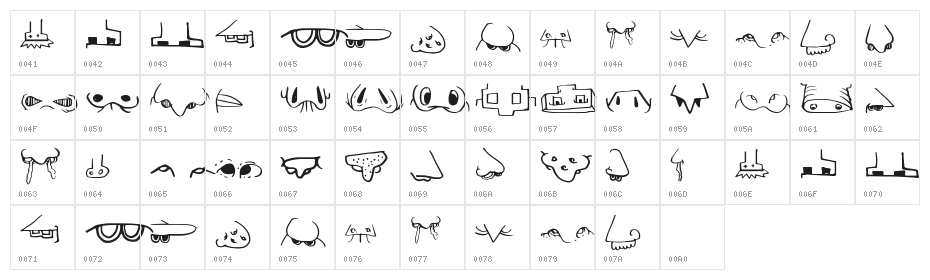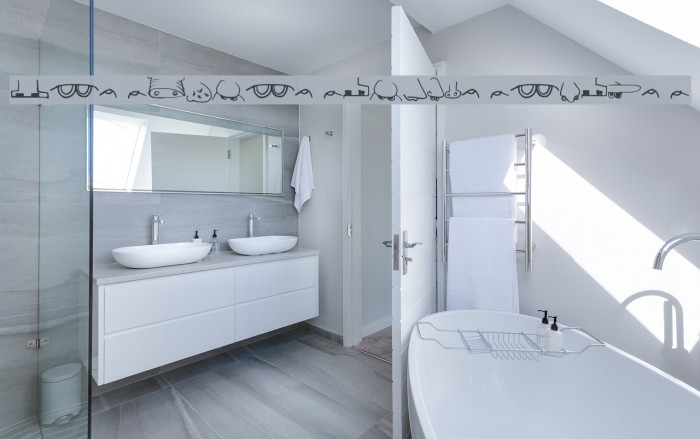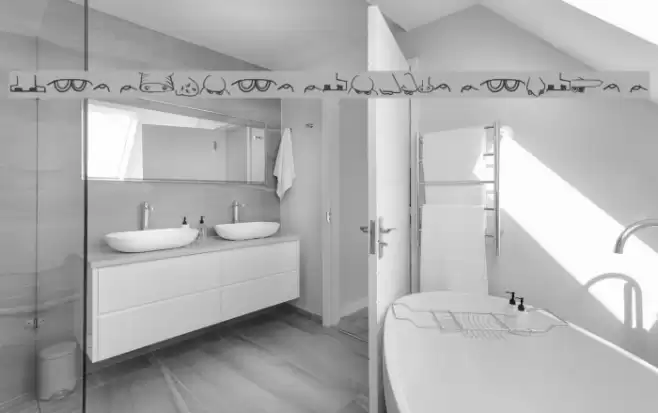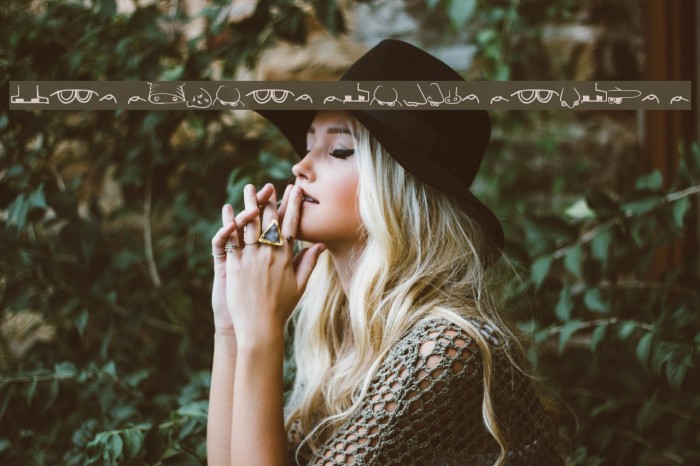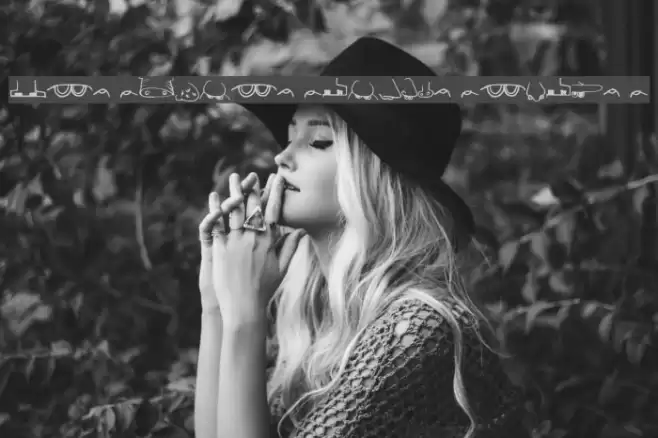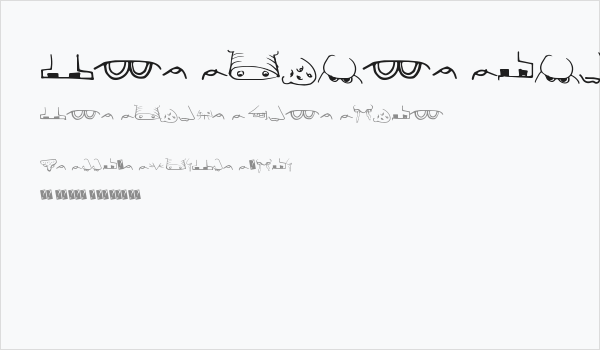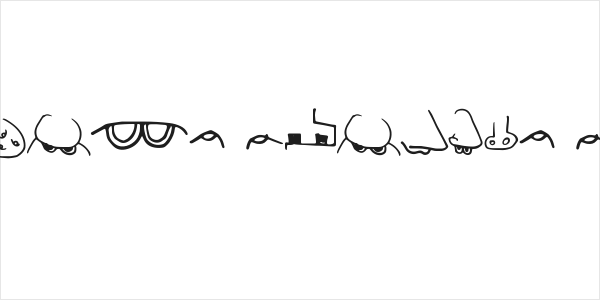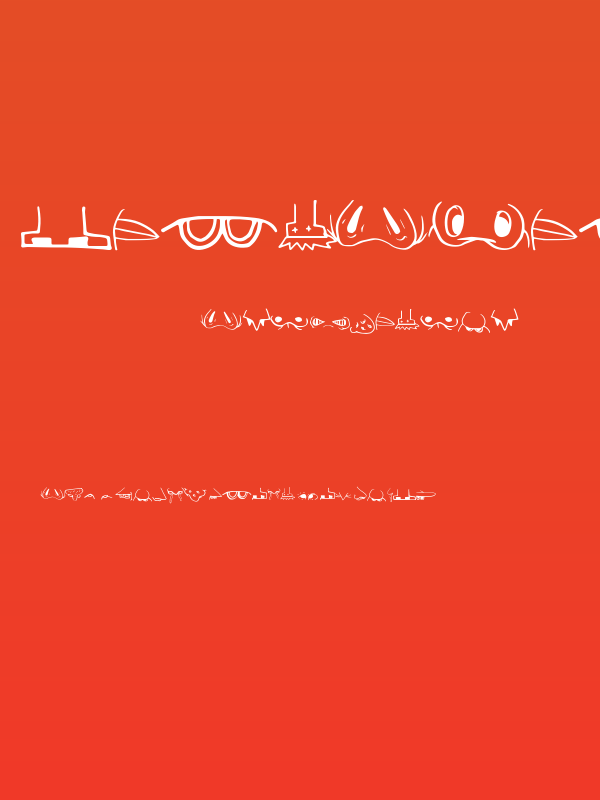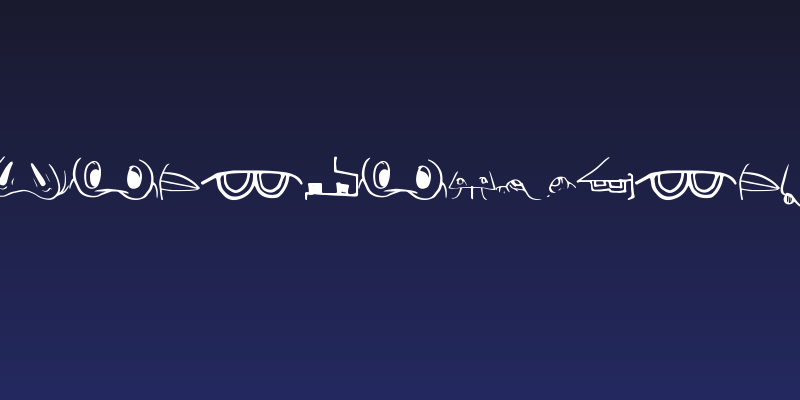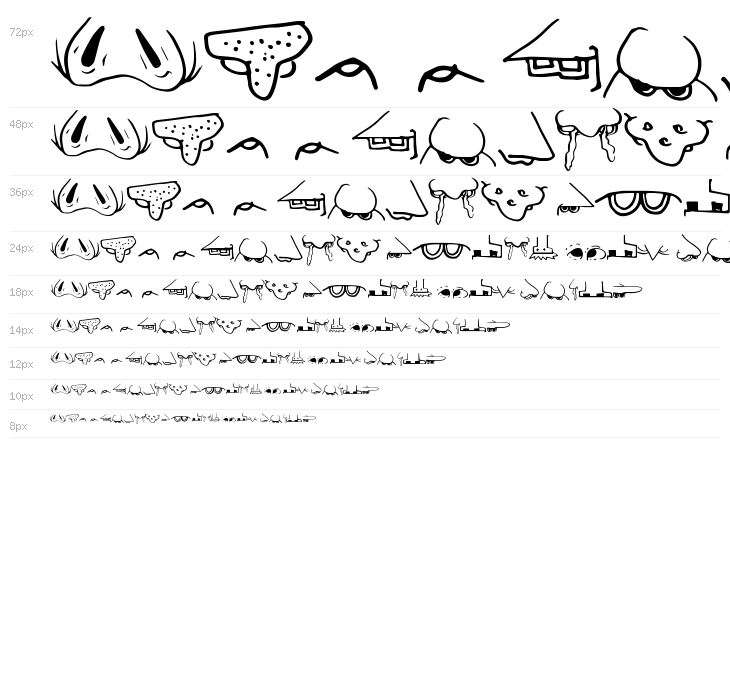
CreatureBuilderNose Font
CreatureBuilderNose Description
This font is a whimsical and playful collection of nose illustrations, each character representing a different style or type of nose. The designs are highly creative, showcasing a variety of shapes and sizes, from simple lines to more detailed and textured depictions. The font does not follow traditional typographic conventions, focusing instead on artistic expression and humor. Each character is unique, making it ideal for projects that require a touch of fun and creativity. The font's distinctive style makes it stand out, offering a unique visual experience.
| Overall Style | Whimsical and Artistic |
| Use Case | Logos, Illustrations, Creative Designs |
| Proposed Projects | Ideal for children's books, comic strips, playful branding, and creative design projects. |